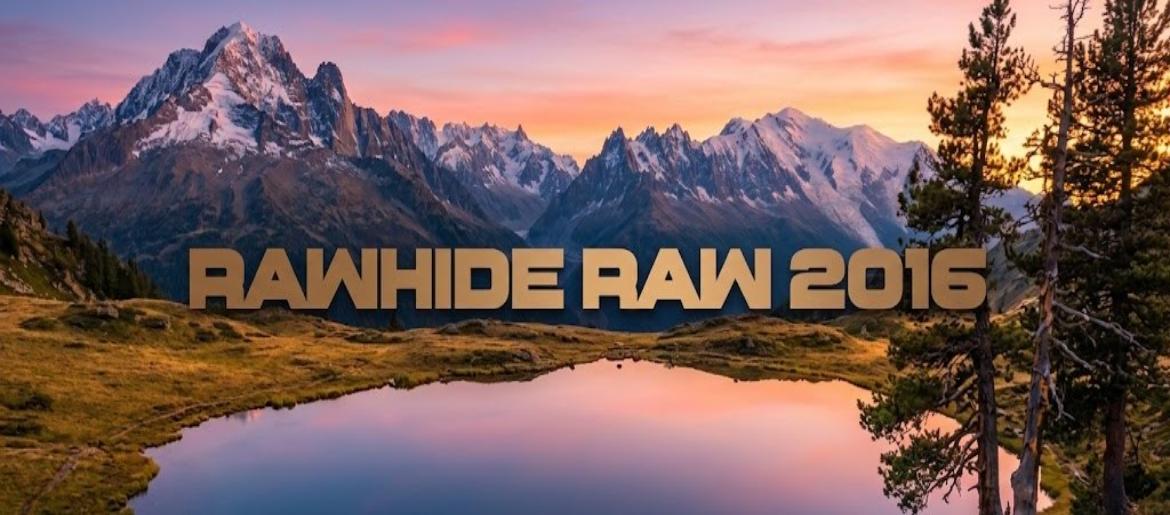
Rawhide Raw Font
Rawhide Raw 2016 by Chequered Ink is a modern, thick-set all-caps block display typeface that commands attention with the calm confidence of something built to last. Its clean, square-cut letterforms strike a balance between raw typographic power and polished structure — bold enough for branding logos and sports headlines, disciplined enough for comic books, military graphics, and cinematic movie titles. A complete set of both alphabetical and numeric characters makes it as practical as it is visually striking. Free for personal use.
Rawhide Raw 2016 is a muscular addition to our free font collection, from Chequered Ink — a prolific UK-based type studio whose extensive catalogue spans display, graffiti, retro, and sports typefaces, consistently delivering well-crafted, high-impact letterforms for designers working across print, screen, and apparel. Browse our full library of free fonts and discover more distinctive typefaces crafted by independent designers around the world.